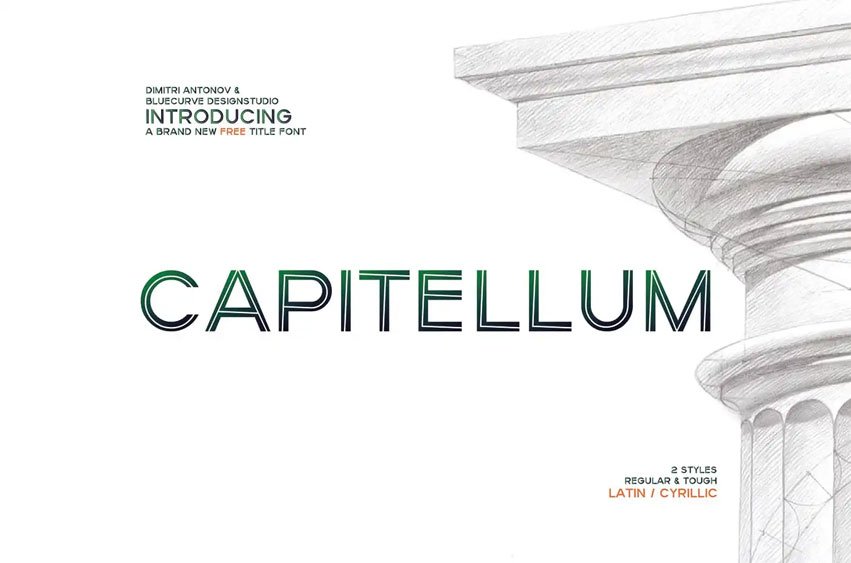
Capitellium Font is a strong and bold sans font exudes strength and confidence with its clean lines and thick letterforms. Each character in Capitellium is meticulously crafted to bring a dynamic and modern twist to your designs, adding a sense of stylish dynamism.
This geometric display font with its distinctive slanting effect is ideal for projects that require a sense of forward movement and modernity. Capitellium is perfect for creating impactful headlines, logos, or branding materials that demand a unique, eye-catching design.